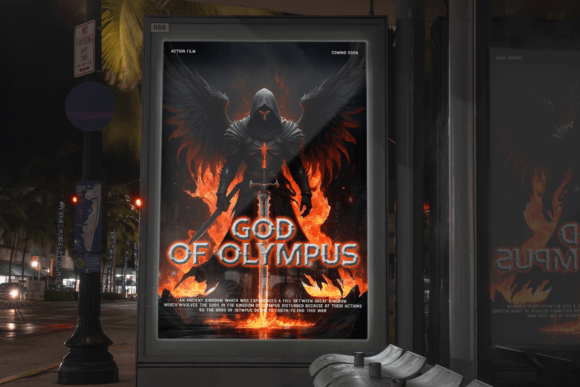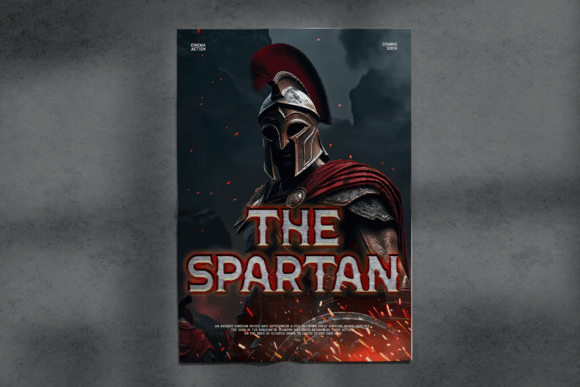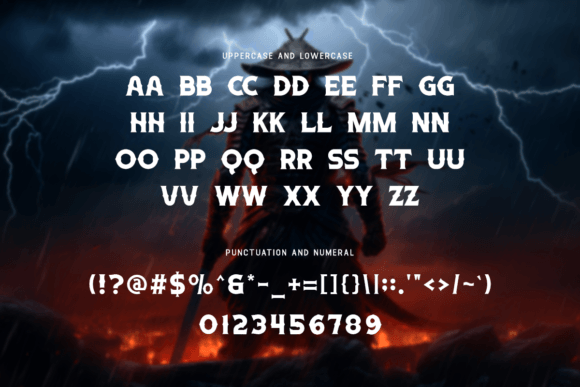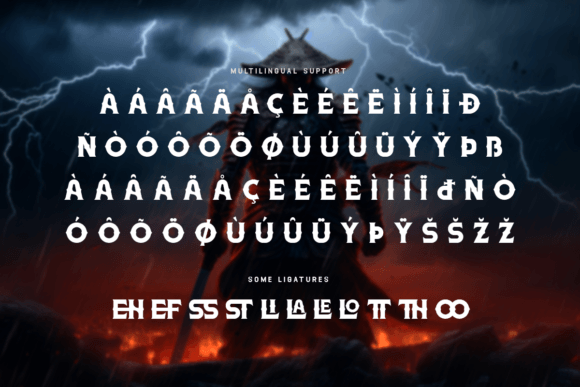
Meet Your New Creative Partner: Casthalia Font
Imagine you’re brainstorming ideas for a movie poster, and you want to create a design that truly stands out from the crowd. You’re browsing through font libraries, searching for the perfect combination of style and sophistication. Suddenly, you stumble upon Casthalia Display Film Font – a striking and modern typeface that screams drama and cinematic flair. With its sharp, dynamic letterforms and sleek lines, Casthalia Font is the perfect tool for designers who want to make a bold statement.
Whether you’re crafting a film title, logo, or high-impact design, Casthalia Font adds a unique and powerful visual presence to your work. Its PUA encoded design makes it easy to access all the cute glyphs and swashes, giving you the creative freedom to experiment and push the boundaries of your design. With Casthalia Font, you’ll be able to elevate your design with its contemporary edge and make a lasting impression on your audience.
Casthalia Font Key Features
- Font Family: Casthalia Font is a unique, high-quality font family that offers a wide range of styles and weights.
- Size: Casthalia Font comes in a range of sizes, from 10pt to 72pt, making it suitable for various design applications.
- Resolution: Designed to be scalable, Casthalia Font maintains its clarity and legibility at resolutions up to 300 DPI.
- Unique Characteristics: Casthalia Font features a distinctive, elegant design with a mix of modern and classic elements, making it perfect for creative and professional projects.
- Weight and Style Options: Casthalia Font offers a range of weights, from Light to Bold, and styles, including Italic and Regular, giving designers ample flexibility.
Designer Review: Casthalia Font
Overall, I think Casthalia Font is a solid choice for designers looking for a elegant and refined typography solution. ✨ Its curved lines and subtle flair give it a sophisticated look that works well for branding, publishing, and editorial projects.
One of the standout features of Casthalia Font is its legibility, even at small font sizes. This makes it an excellent choice for body text, where clarity and readability are crucial. ✨ Additionally, the font’s open and airy feel creates a sense of lightness, perfect for projects that require a sense of freedom and movement.
- ⚠️ Limited character set: Casthalia Font has a relatively small character set, which may limit its use in languages that require a broader range of characters.
- ⚠️ Not ideal for digital displays: While Casthalia Font looks great on paper, it may not be the best choice for digital displays, where its curved lines and subtle flair may get lost or become distorted.
Overall, I think Casthalia Font is a great addition to any designer’s toolkit. While it may have some limitations, its elegant and refined look make it a solid choice for a variety of projects.
To get the most out of Casthalia Font, use it for:
- Casual, creative designs
- Brand logos and icons
For best results, pair Casthalia Font with bold, contrasting colors and clean, simple graphics.
Great Vibes is a beautiful, modern script font perfect for creative and artistic designs. It is ideal for use in titles, headings, and other text elements where a touch of elegance and sophistication is required. Compared to Casthalia Font, Great Vibes is more cursive and fluid, making it a better choice for designs that require a more personal touch.
Carolyna Pro is a luxurious, high-end font suitable for premium branding and high-end publications. It is ideal for use in headings, titles, and other prominent text elements. Compared to Casthalia Font, Carolyna Pro is more refined and sophisticated, making it a better choice for high-end designs that require a touch of elegance and sophistication.
What is the recommended font size for using the Casthalia Font?
The Casthalia Font is designed to be highly legible at a wide range of font sizes. However, for optimal readability, we recommend using font sizes between 12pt and 24pt for body text, and 36pt and 48pt for headings. This will ensure that the font looks its best and is easy to read.